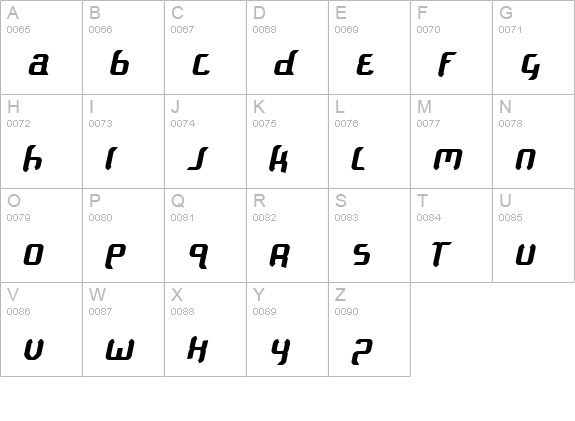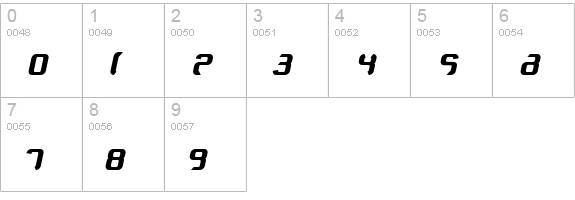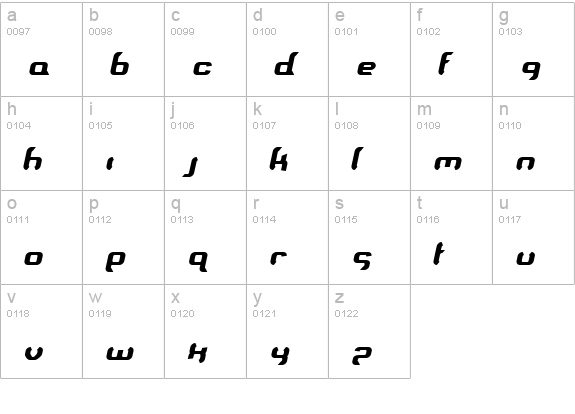
Supersoulfighter Font Details
Supersoulfighter font is a modern and stylish typeface that exudes creativity and sophistication. Its sleek lines and elegant curves make it perfect for a wide range of design projects, from branding to editorial layouts. This versatile font is sure to make your text stand out and leave a lasting impression on your audience. What's even better is that Supersoulfighter font is completely free to download at FontsMarket.com. Yes, you heard it right - this fantastic font is just a few clicks away, waiting to enhance your designs with its unique charm and flair. So why wait? Download Supersoulfighter font now and add a touch of elegance to your next project!